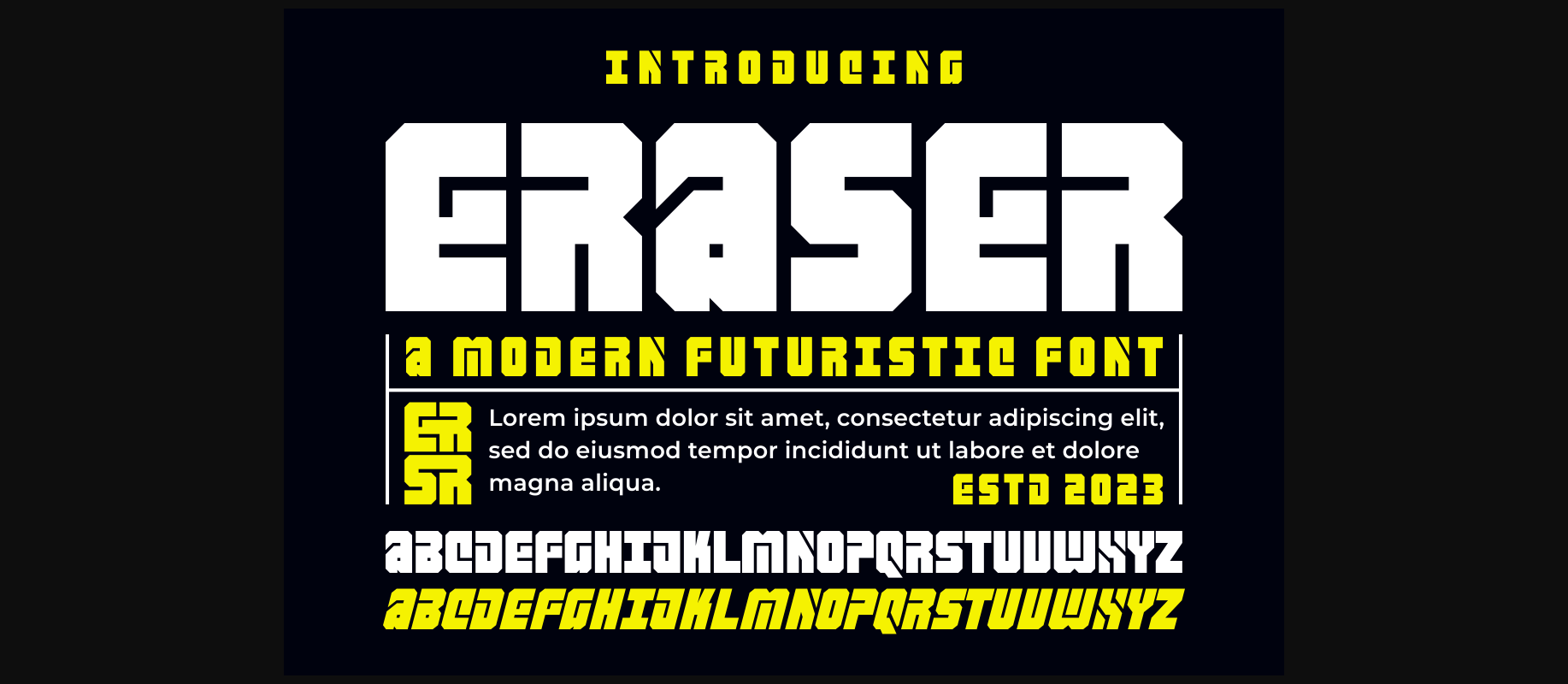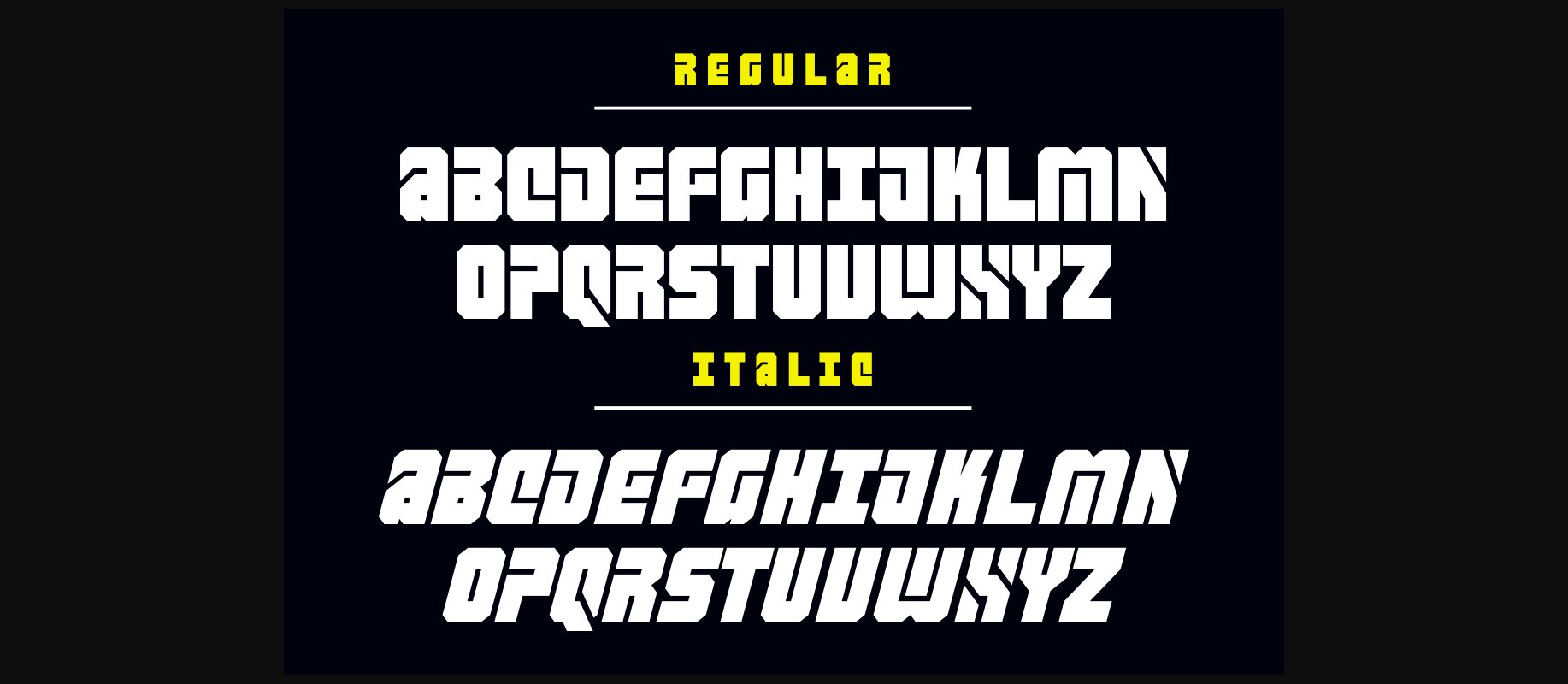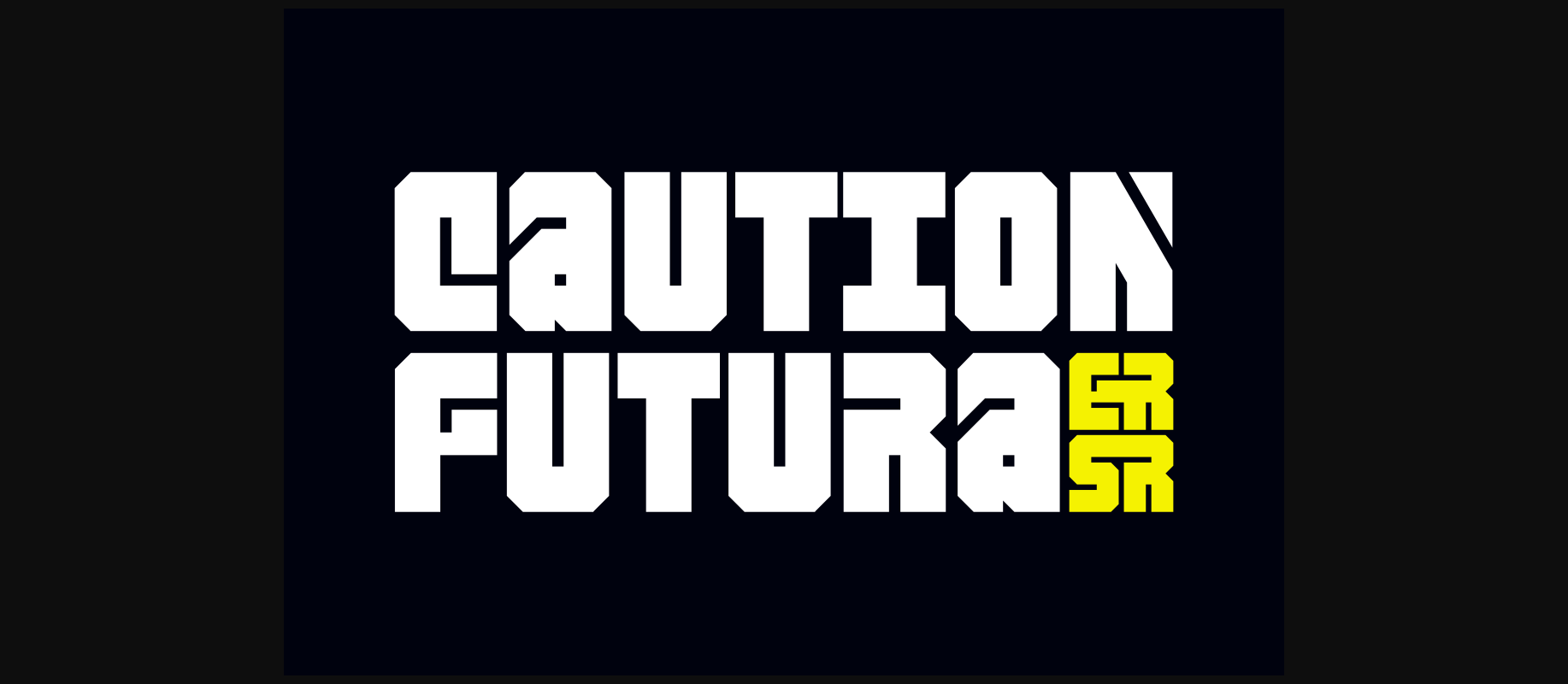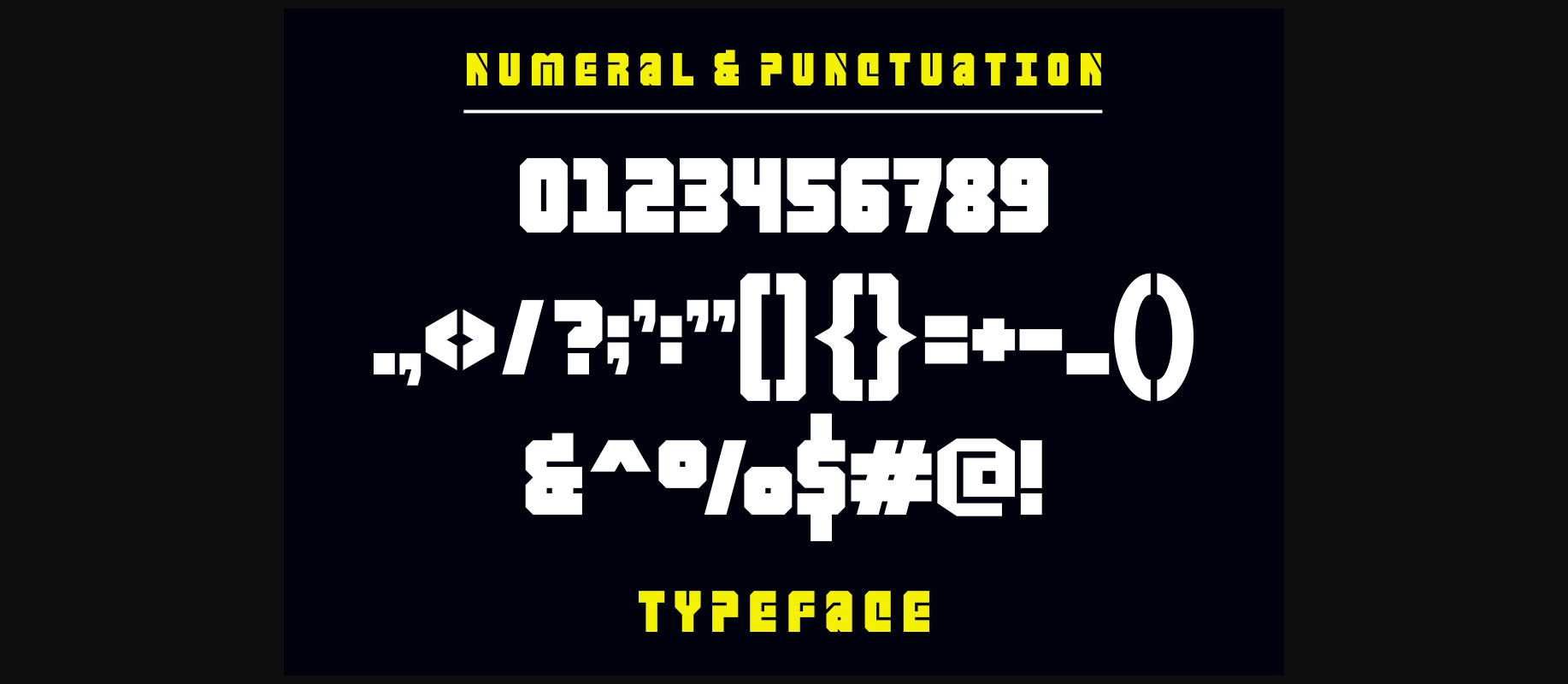
Eraser Font
About Eraser Font
Eraser Font is a modern decorative typeface with a futuristic feel. This lovely font will be perfect for quotes, posters, logos, print ads, digital ads, promotional products, video bumpers, etc.